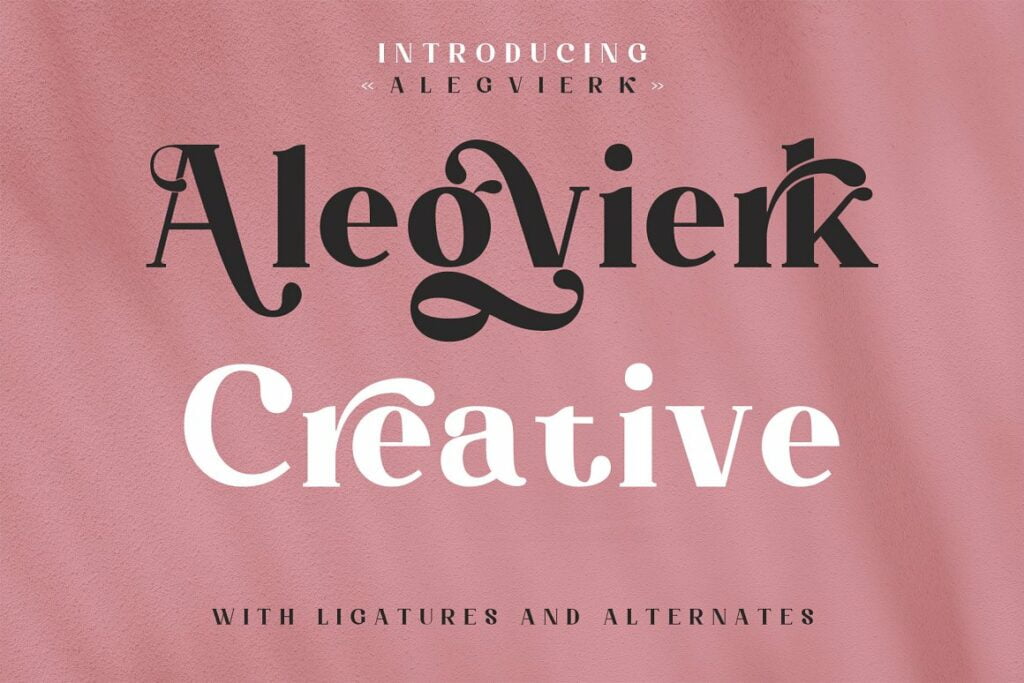
Alegvierk Font
Alegvierk Font is a highly detailed, chic and uniquely designed serif font created by LuhopCreative. This font is equipped uppercase, lowercase ,numeric and symbols. It will elevate a wide range of crafting ideas, from cards, to branding, labels and much more.
Alegvierk Serif Font